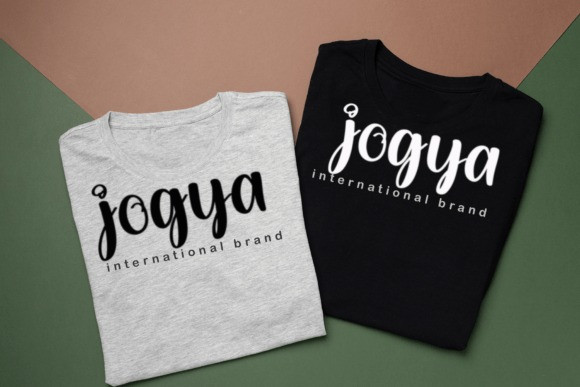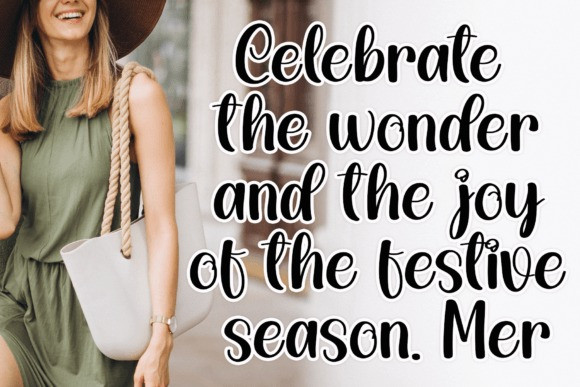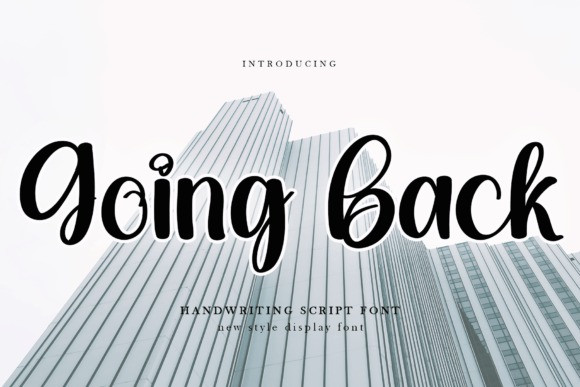
Going Back Font
Going Back Font is a stylish handwritten font with a contemporary atmosphere and impeccable form, inspired by timeless classic calligraphy. Balanced and varied, this font was designed to enhance the beauty of your projects.